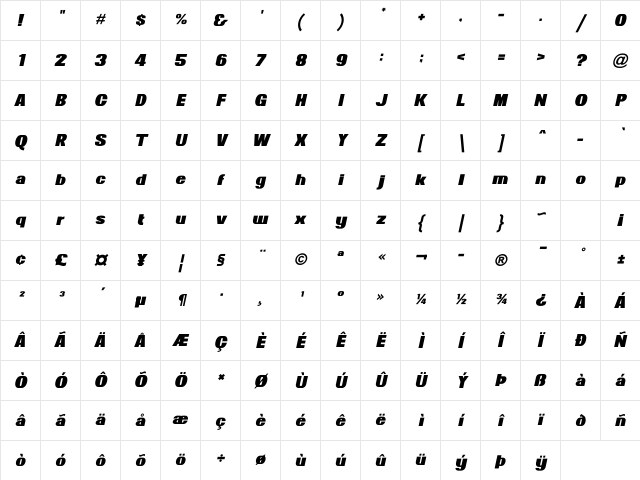
Complete News of the World Italic glyph index. Displaying only characters natively supported by News of the World Italic font.
News of the World is a composed and adaptable typeface that performs quietly and consistently across a wide range of design contexts. The slanted form adds forward momentum and visual energy.
Pro Tip: Use News of the World for emphasis, pull quotes, and subheadings where its slanted energy can add rhythm to the layout.